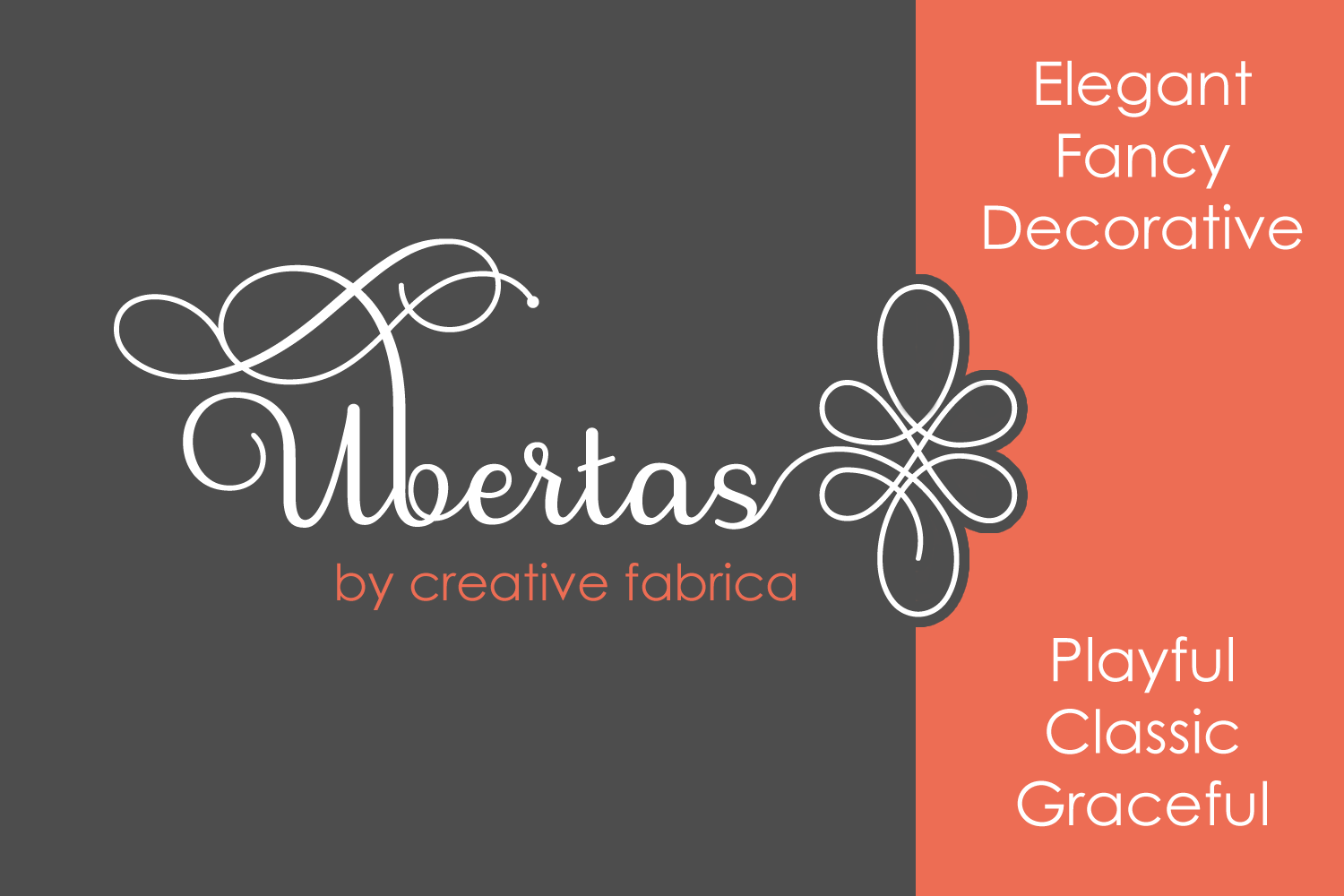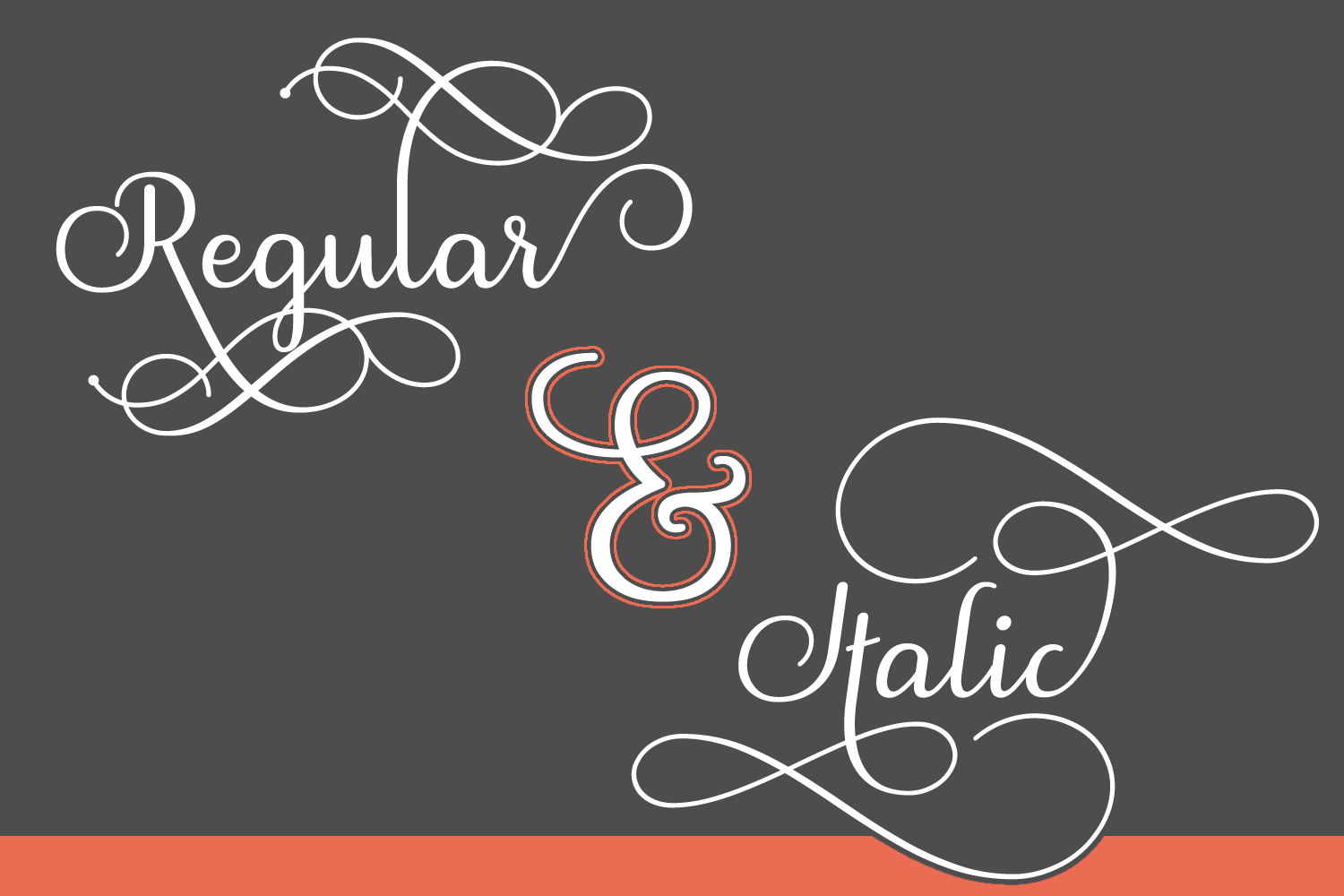
Ubertas Font
db-ku.com - Script & Handwritten -- Ubertas is packed with stunning alternates, allowing you to create endless varieties. You will never run out of possibilities and with Ubertas you can whip up something unique, no matter how many times you use it.